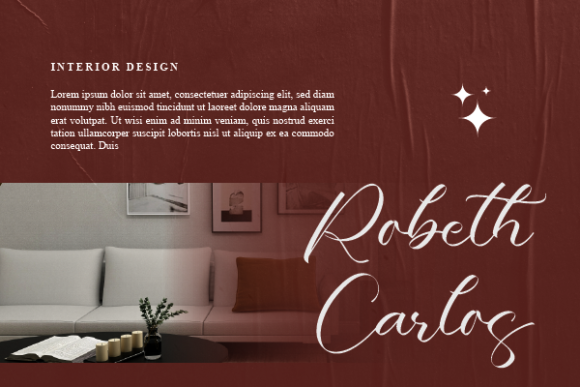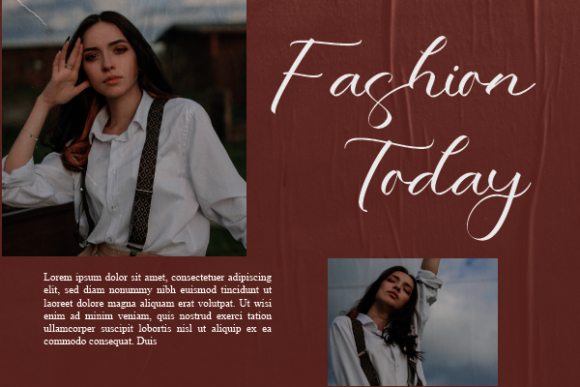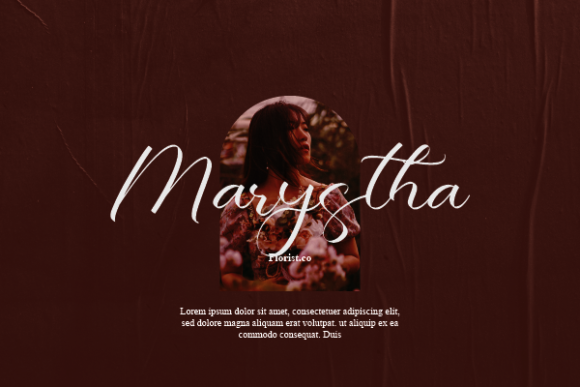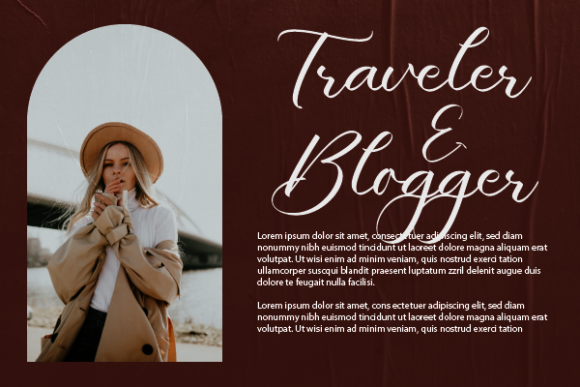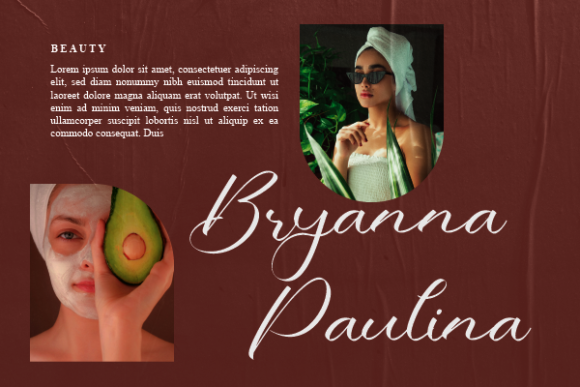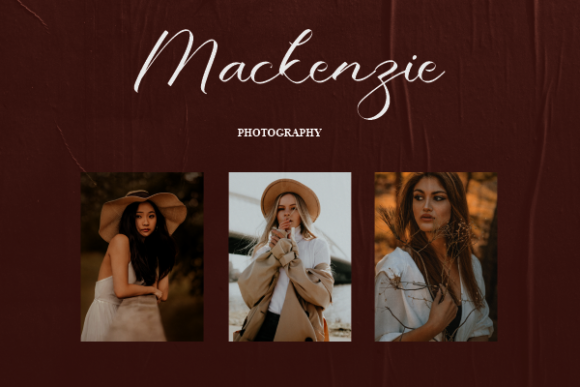
Introduction to Paterson Nolan Font
Paterson Nolan is a flowing handwritten font, described by an elegant touch, perfect for your favorite projects.
Key Features of Paterson Nolan Font
Why Choose Paterson Nolan Font?
Paterson Nolan Font offers exceptional quality and versatility, making it a valuable addition to your design toolkit. Whether you’re creating for personal projects or commercial use, Paterson Nolan Font delivers professional results.